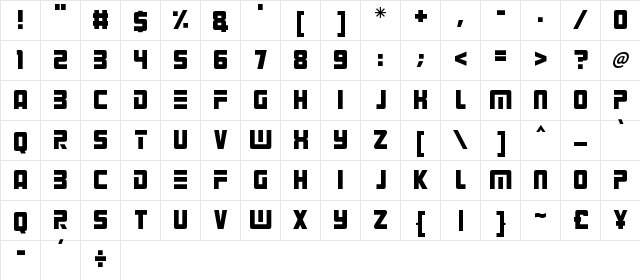
Alien Android Regular
Design Context for Alien Android Typeface
Alien Android takes a measured approach to typography — its balanced proportions and neutral character make it a reliable workhorse for both digital and print work.